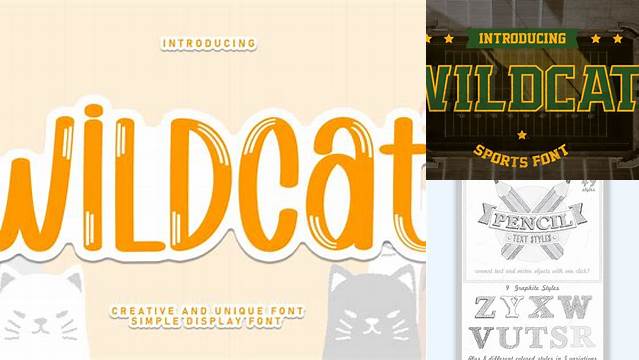
Download Free Wildcat Fonts: Unleash Your Creativity!
Hey guys! Are you on the hunt for a cool, unique font that screams personality? Well, you're in luck! Today, we're diving headfirst into the awesome world of free wildcat fonts. These fonts are super versatile and can add a touch of wildness, energy, and a whole lot of character to your projects. Whether you're a seasoned graphic designer, a budding enthusiast, or just someone who loves to jazz up their personal projects, you're going to find something to love here. I'll be showing you how to get your hands on these fonts, how to use them, and even some cool ideas on where you can use them. Let's get this party started, shall we? Let's explore the incredible options available and discover how these fonts can revolutionize your design game. The best part? It’s all about free fonts!
What Exactly is a Wildcat Font? And Why Should You Care?
So, what exactly makes a font a "wildcat" font? Well, it's all about the vibe, my friends! Free wildcat fonts often embody a sense of boldness, a touch of the untamed, and a rebellious spirit. Think of them as the graphic design equivalent of a roaring motorcycle or a killer guitar solo. They're designed to grab attention and make a statement. They can range from super-stylish handwritten fonts that have a playful look, to fonts that have a bold, almost aggressive appearance that captures the energy of a wildcat. These fonts are perfect for projects where you want to convey strength, dynamism, or a hint of playful chaos. They're often used for branding, headlines, posters, and any design element where you need to make a strong visual impact. The key is to use these fonts effectively, pairing them with the right colors, images, and overall design aesthetic to truly bring your vision to life. Understanding the essence of a wildcat font is the first step to harnessing its power. When you understand how it can impact your designs, you are able to choose the right font and get your message across. This will truly create stunning designs.
Why should you care? Because these fonts can seriously elevate your design game. A well-chosen wildcat font can transform a bland design into something captivating and memorable. It can help your brand stand out from the crowd, creating a unique identity that reflects your personality or the message you want to convey. They’re also super fun to experiment with! You can try them out on your social media posts to create something unique, on your website to make your site stand out, or on a cool poster for your band. Let's get creative and find out why using this type of font is a great choice.
How to Spot the Best Wildcat Font
So, you know that you want to get a free wildcat font but you're not sure which one to use? The best wildcat font is the one that fits your needs and design. When looking for the perfect wildcat font, you want to first consider what kind of design you are going to be using the font for. You want to think about the project you are working on, what your brand is about, and what kind of message you want to deliver to the world. If you're using a font for a business, you may want to consider using a different font, as wildcat fonts are not always the right choice. For example, a more formal font would work better. However, if you are creating a logo for a rock band, then you might want to consider using a wildcat font. The best wildcat fonts often have these characteristics: they are easy to read, they have a unique look, and they suit the style of the message that you want to convey. Also, you want to think about the overall impression that the font is going to give. Is it going to look serious? Playful? Strong? These are all considerations to keep in mind when you are picking out a font. You can try to search for fonts that meet all of these characteristics, or find a font that meets most of these characteristics. If you do not like a font, it is easy to just switch it up.
Key Characteristics to Consider
Now, let's dig a little deeper into the specific things you should look for when searching for a free wildcat font. This will make sure that your chosen font truly represents what you need. First, check the readability. A good font is easy to read, whether in headlines or in the body of text. The purpose of a font is to convey a message. If your font is too difficult to read, it will not get your message across. In that case, all of the work that you put into the design will be for nothing. A font is made to make your message easier to understand, and if it's not able to do that, then it is not a good font for you. The style of the font also needs to be appropriate for your project. You may need a fun, playful font or a font that looks serious. There are many different styles of font that you can choose from to find the right one for you. Finally, consider the licensing. Most of the time, free fonts can be used for personal projects. However, if you are planning to use the font for a business, you may need to purchase a license or use a different font that offers a commercial license. Always read the fine print! These considerations will help you to find a great font that will fit all of your needs.
Font Squirrel is known for its high-quality fonts and excellent licensing information. This is another website that focuses on quality, offering only the best options. They have a curated collection of free fonts with commercial-use licenses, which is fantastic if you're using the font for a business project. They provide you with all the information you need, so you can be sure that you will be able to use it.